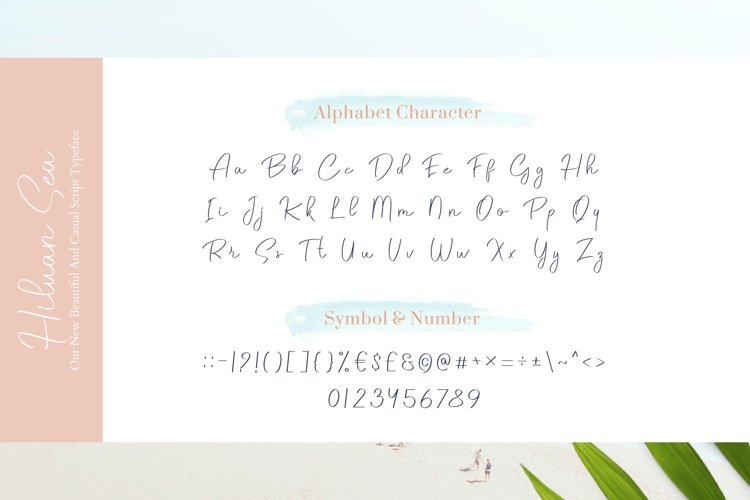
Hiluan Sea - Beautiful & Casual Script Typeface
Hiluan Sea
Hiluan Sea is modern feminine font, every single letters have been carefully crafted to make your text looks beautiful. With modern script style this font will perfect for many different project ex: logo, photography, watermark, quotes, blog header, poster, wedding, branding, logo, fashion, apparel, letter, invitation, stationery, etc.
Font Features
– Uppercase
– Lowercase
– Numerals & punctuation
– Multilingual support